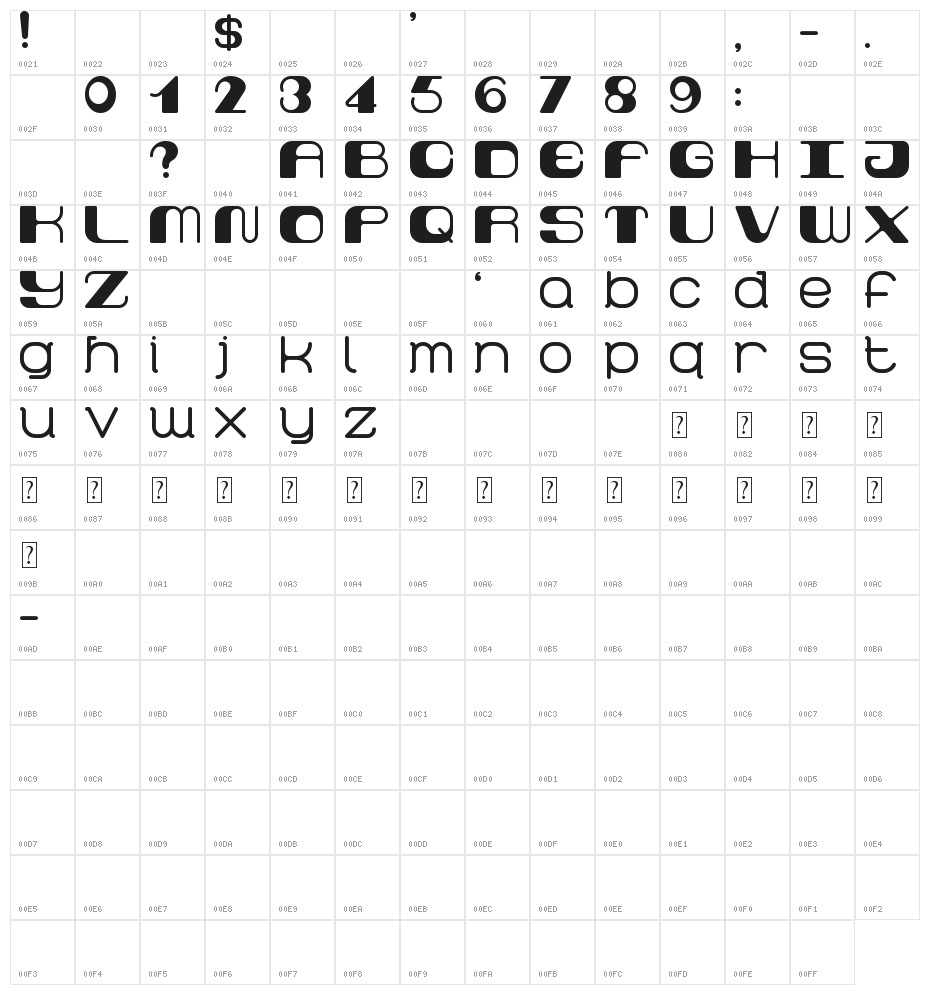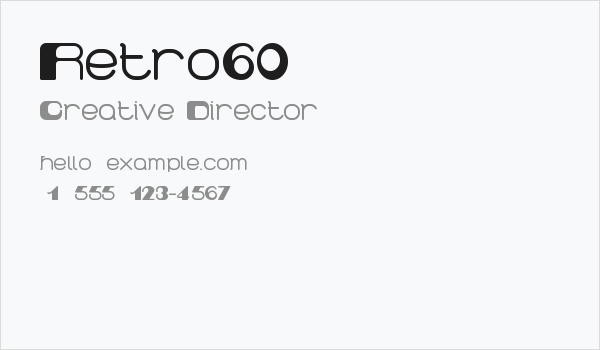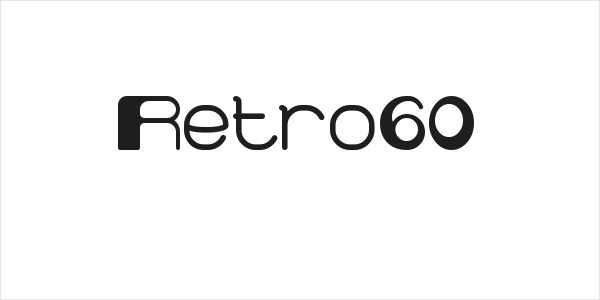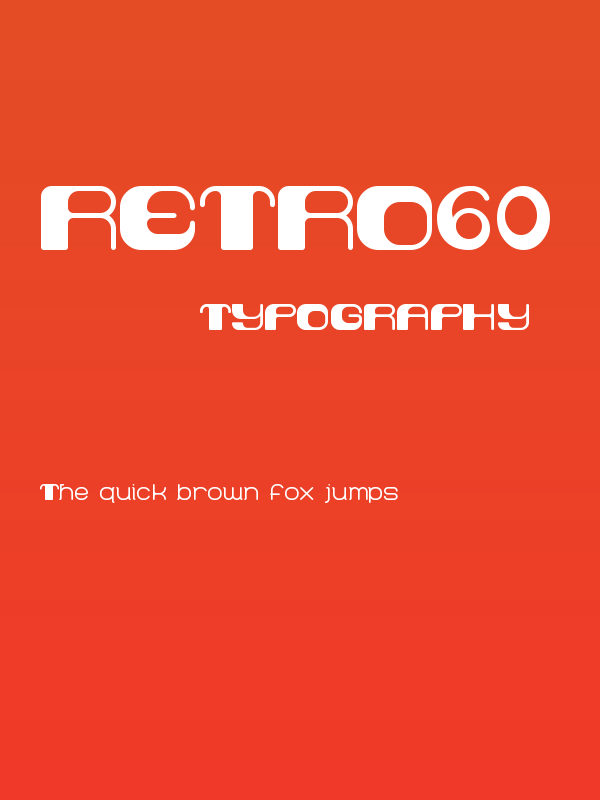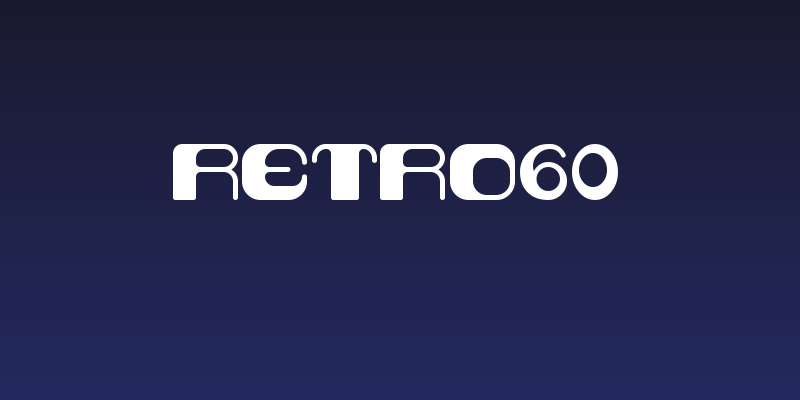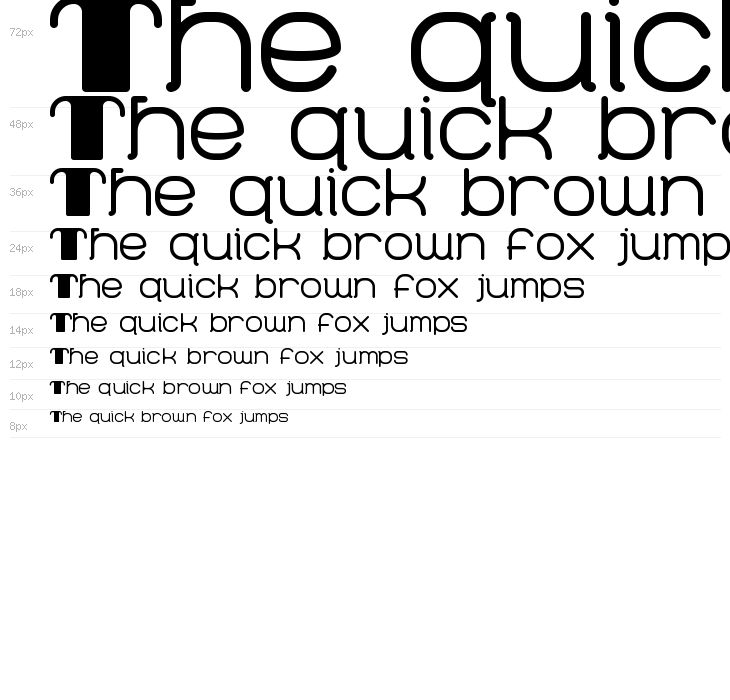
Retro60 Font
Retro60 Description
This font embodies a retro aesthetic with a modern twist, featuring bold, rounded characters that evoke a sense of nostalgia. The uppercase letters are particularly striking, with a unique blend of thick and thin strokes that create a dynamic visual rhythm. The lowercase letters maintain a consistent flow, offering a softer, more approachable feel. Numbers and special characters are designed with the same attention to detail, ensuring a cohesive look across all text elements. The font's overall style is both playful and sophisticated, making it suitable for a variety of creative projects.
| Overall Style | Retro |
| Proposed Projects | Ideal for vintage-themed posters, branding, and packaging designs. |